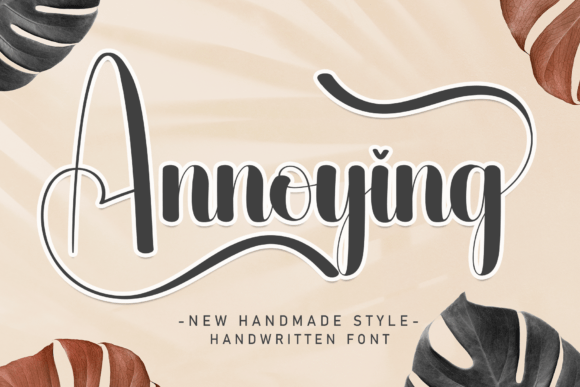
Unleash your creativity with Annoying, a charming and playful script font that adds a touch of whimsy to your designs. Designed by the talented William Jhoody, this sweet and friendly font exudes a warm and inviting feel, making it perfect for adding a personal touch to your projects.
Picture this: a beautifully handwritten wedding invitation, adorned with the delicate strokes of Annoying, conveying the joy and excitement of your special day. Or envision a cheerful greeting card, its message dancing across the page in Annoying's playful characters, sure to bring a smile to the recipient's face. The possibilities are endless with this versatile font.
Annoying's unique charm shines through in its carefully crafted glyphs, each one carrying a hint of playfulness and joy. Its smooth curves and gentle flourishes create a visual harmony that dances across the page, captivating the reader's attention. Whether you're designing a poster for a Christmas party, creating personalized gift tags, or adding a touch of whimsy to your social media posts, Annoying is the perfect choice.
Embrace the delightful spirit of Annoying, and let your imagination soar. With its enchanting style and endless versatility, this font is sure to become a favorite in your creative toolkit. Download Annoying today and embark on a journey of artistic expression, transforming your designs into captivating masterpieces.